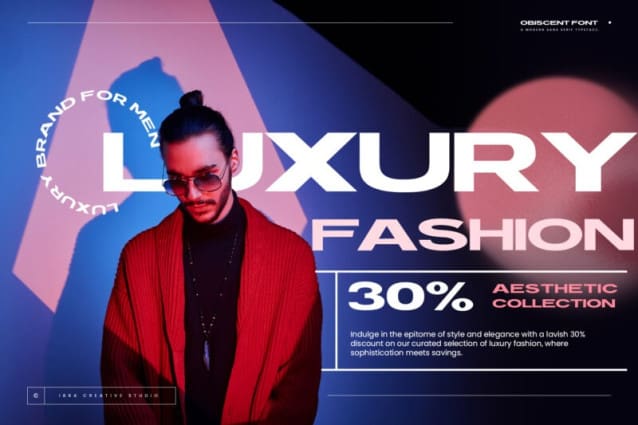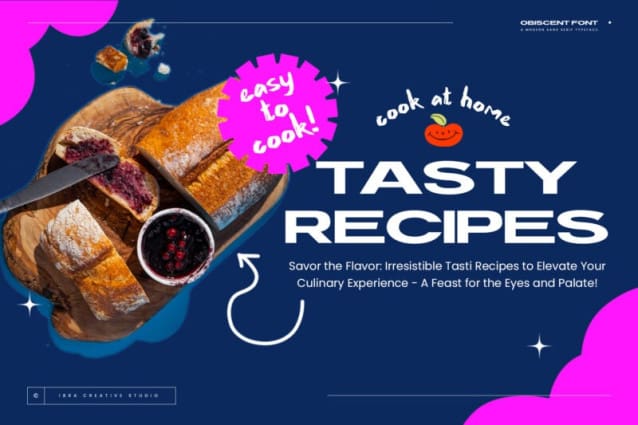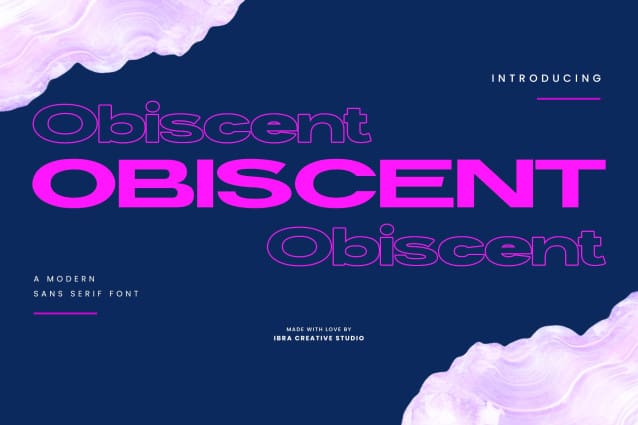
Obiscent Font
Obiscent Font, a modern sans-serif typeface, epitomizes contemporary design with its clean and sleek aesthetic. Its precise geometric shapes and balanced proportions contribute to a sense of sophistication, making it versatile for a wide range of applications. The typeface seamlessly blends simplicity and elegance, enhancing readability across various mediums while maintaining a distinct visual identity. The smooth curves and straight lines of Obiscent create a harmonious and approachable appearance, catering to the demands of modern graphic and web design. Whether used in digital interfaces, branding, or editorial layouts, Obiscent embodies the essence of a modern sans-serif typeface, delivering a timeless and refined typographic solution.